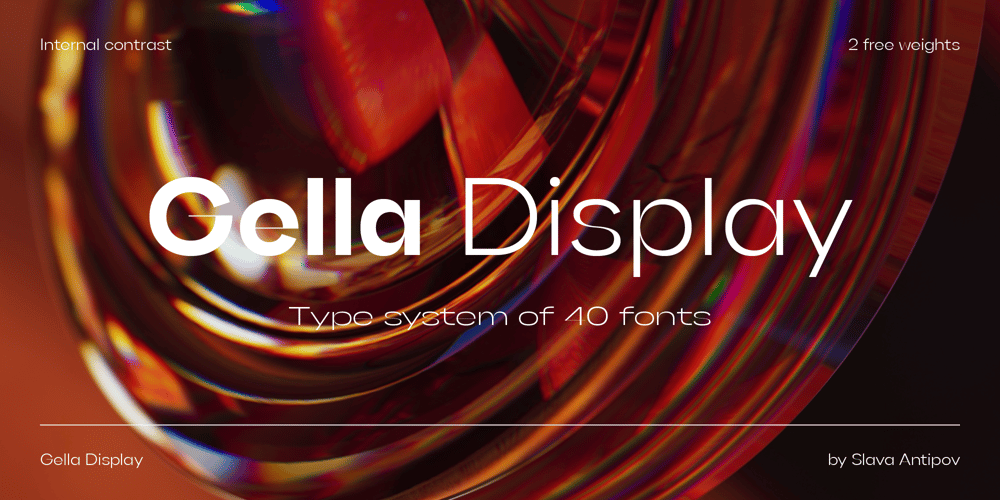
Gella Display
Gella Display font
Gella Display Font Family was designed by Slava Antipov and published by Slava Antipov. Gella Display contains 40 styles and family package options. Gella Display is a sans serif display typeface family with internal high contrast. It consists of 40 styles (10 weights × 4 widths). The multitude of styles makes Gella Display a versatile typeface, suitable for both large blocks of text and for headlines, logos, packaging, branding, presentations, and more.Gella Display supports Latin and Cyrillic scripts, and includes various OpenType features such as ligatures, stylistic alternates, fractions, and others.